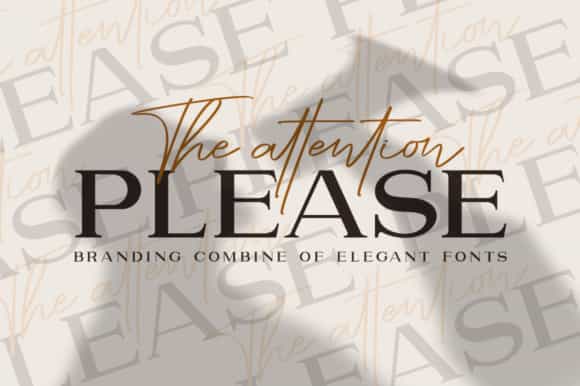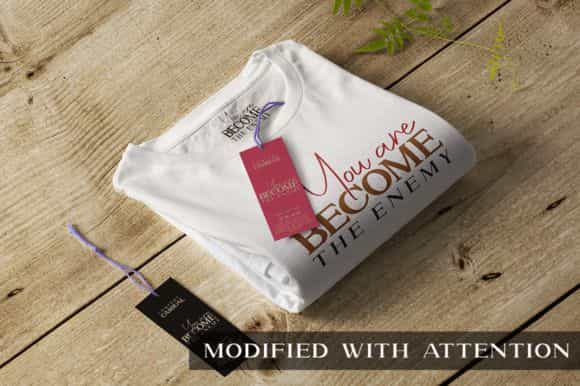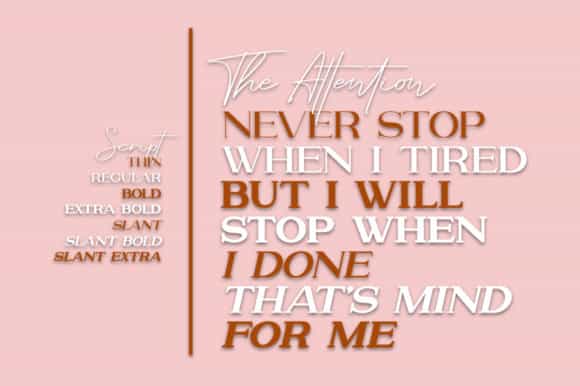
Discover Attention Modern Font Demo, part of the Handwritten Serif collection—a versatile and unique font perfect for adding a personal touch to your projects. Download it for free and enjoy crafting designs with style, from invitations to social media posts. This font is available exclusively for personal use, giving you the freedom to create without limits. Unlock your creativity with Attention Modern Font Demo today!
Attention – An elegant, modern and light font that will surely get anyone’s attention!